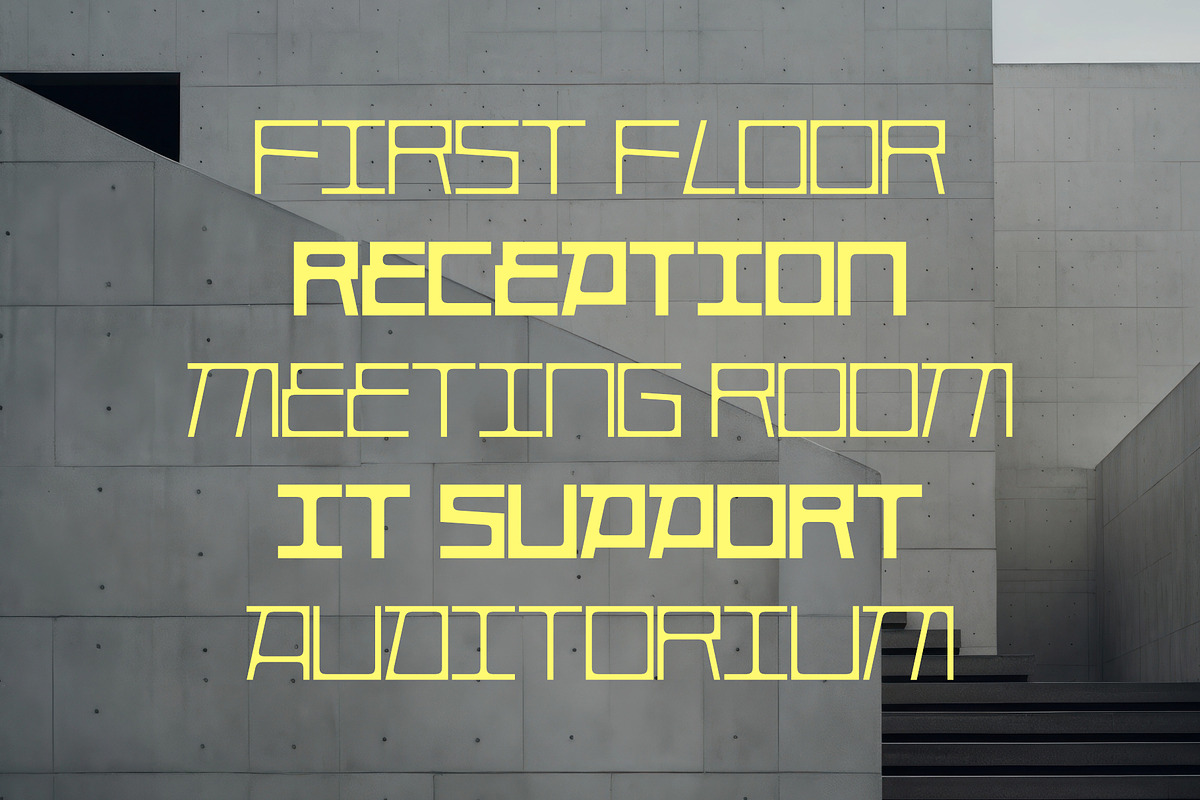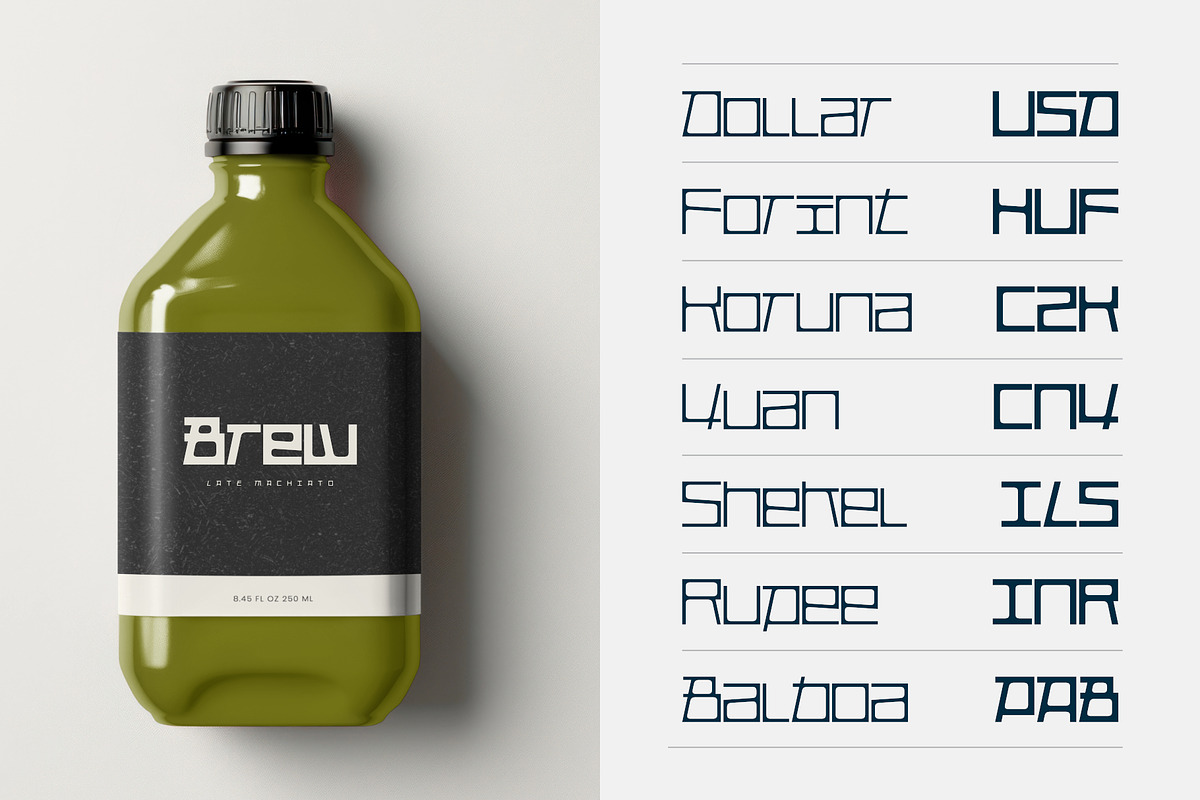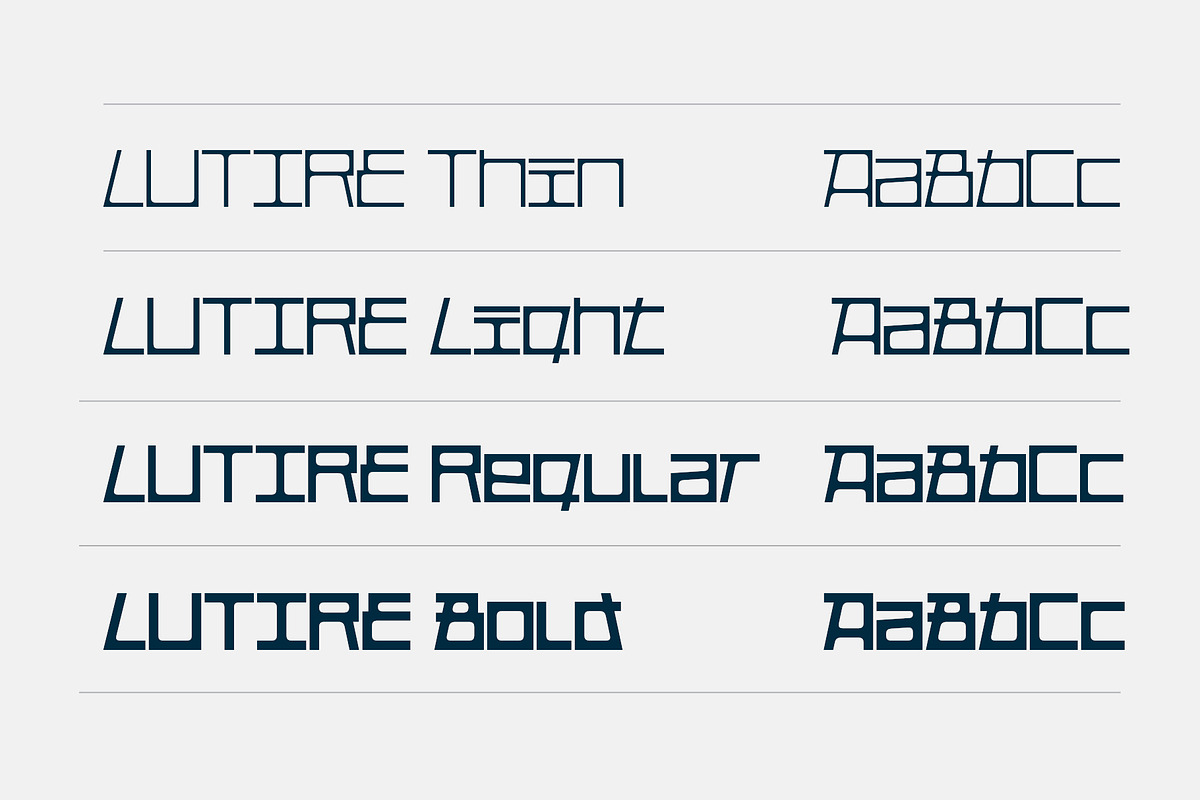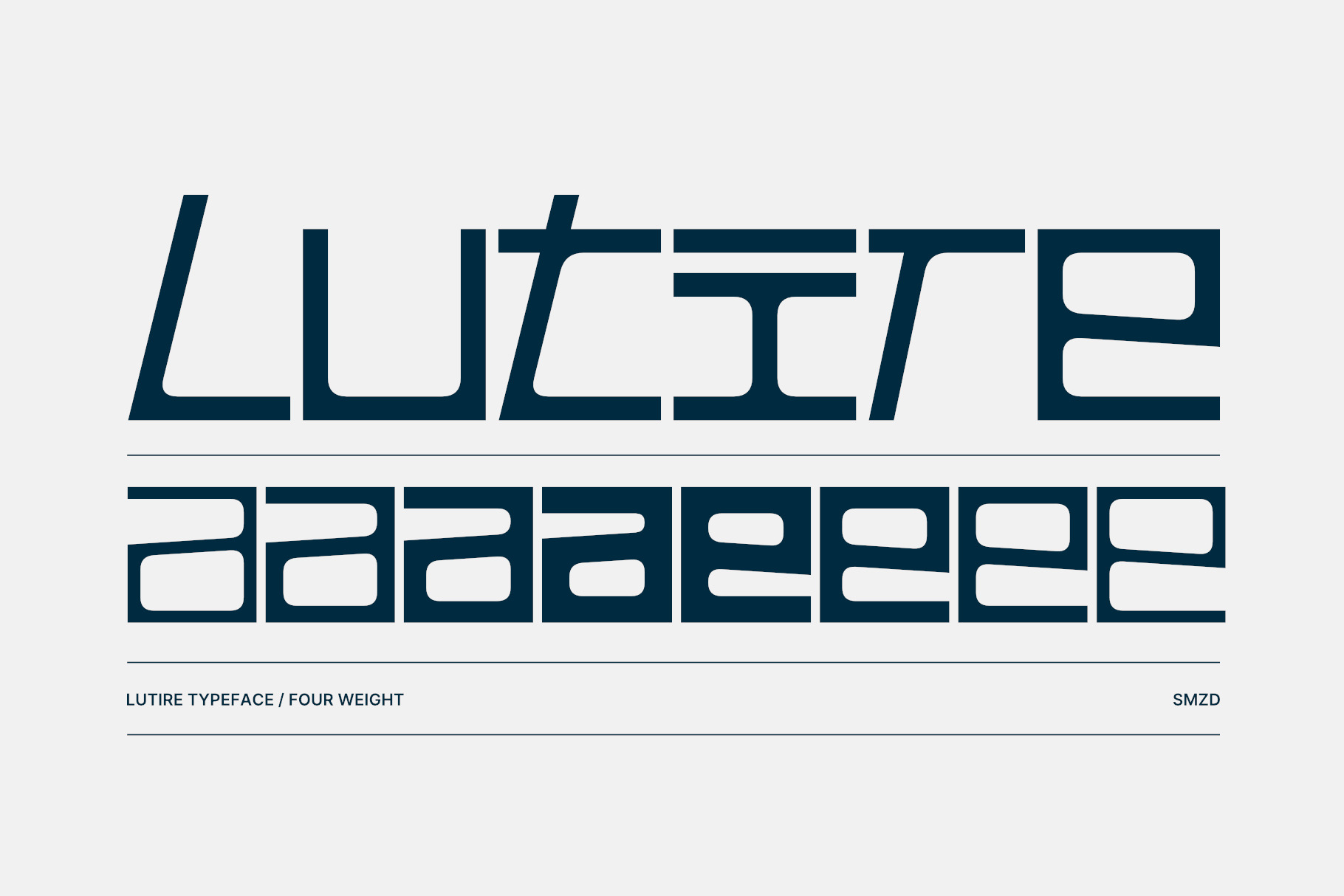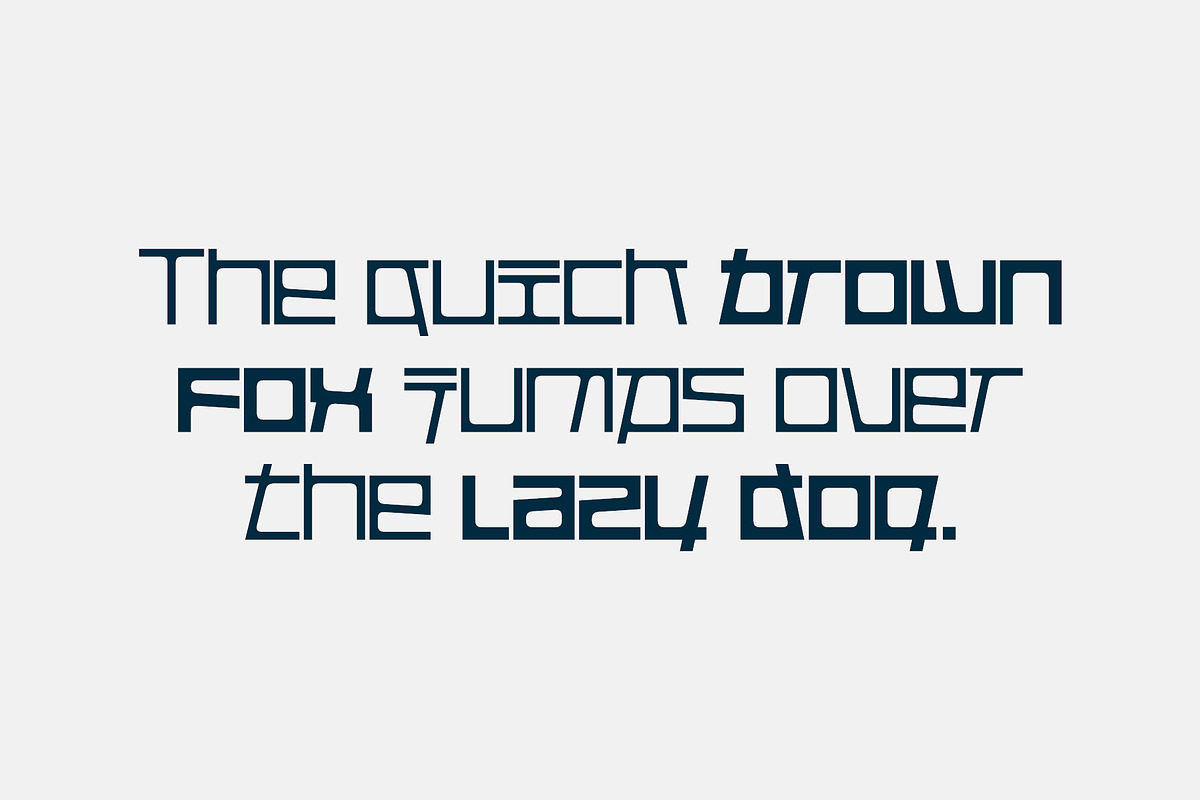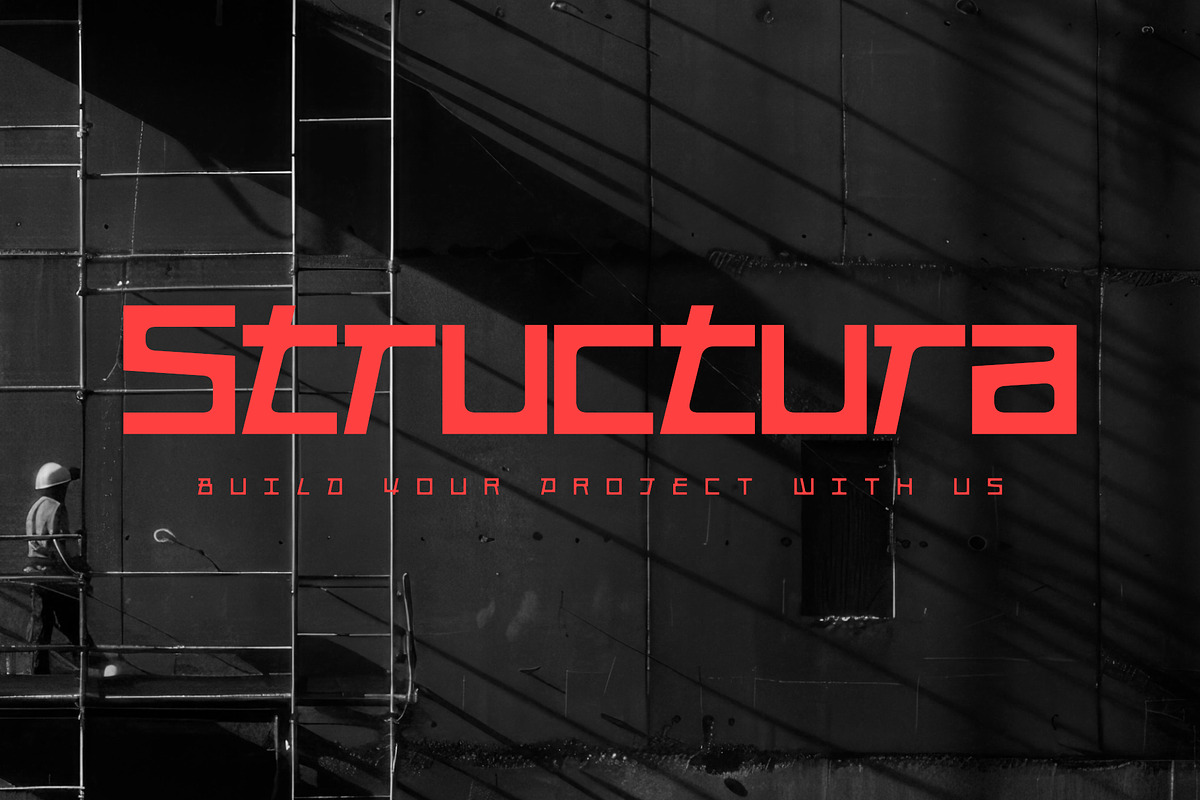
Lutire | Display Font Family
Lutire Typeface is a modern and futuristic display font designed with strong geometric construction. Its sharp lines, unique cuts, and wide shapes give it a bold, architectural character. The typeface feels both mechanical and experimental, making it perfect for projects that need a contemporary and unconventional look.
The font comes in four different weights, which allows flexibility in design — from light, airy titles to bold, impactful headings. Its squared yet slightly curved terminals create a balance between rigidity and flow, making the text visually striking but still legible.
Lutire works especially well in signage, posters, branding, and editorial design where a futuristic, technical, or industrial style is desired.